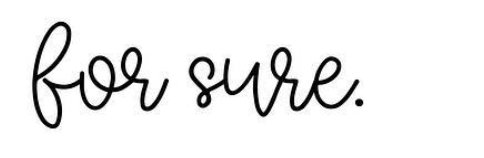
There are scads of informal script fonts out there these days. I didn’t find a perfect match, but Misti’s Fonts has several that are close matches, starting with Better Together. Check out her fonts at dafont.com or Font Space.